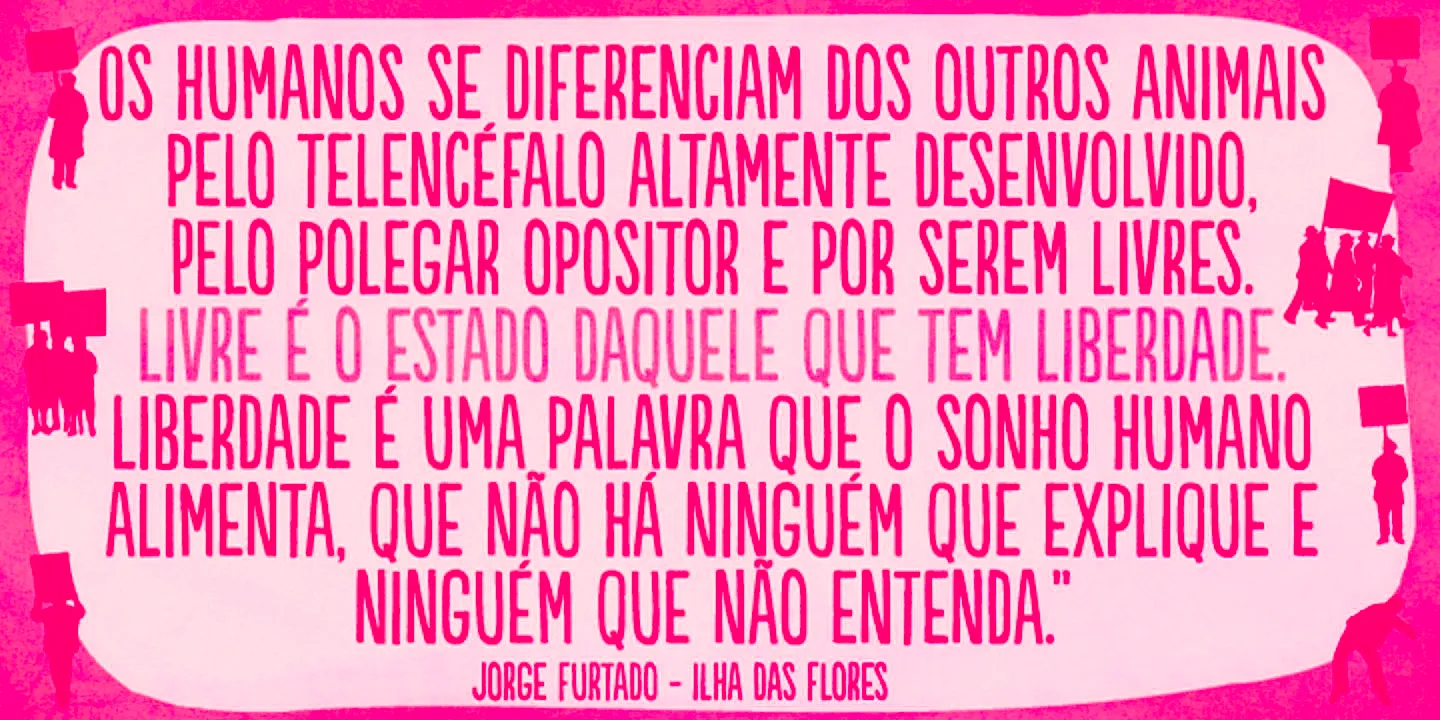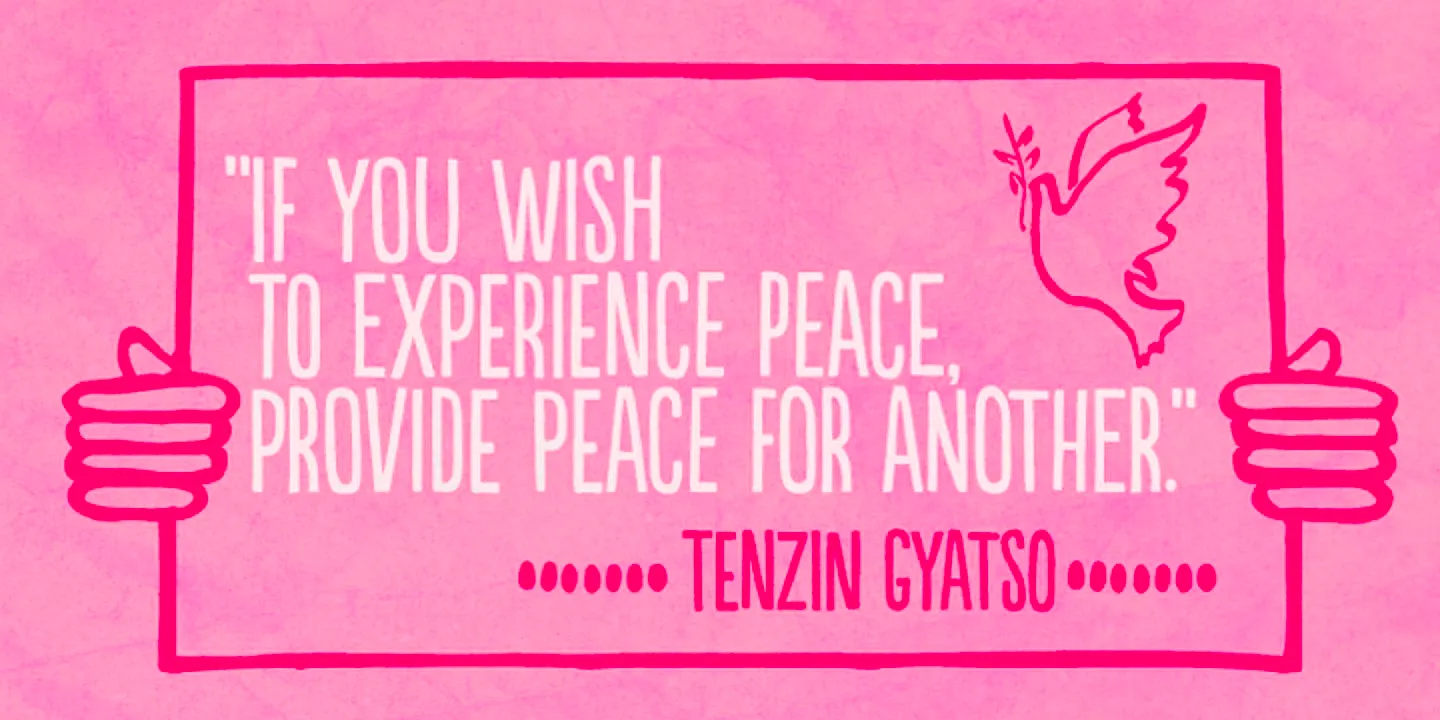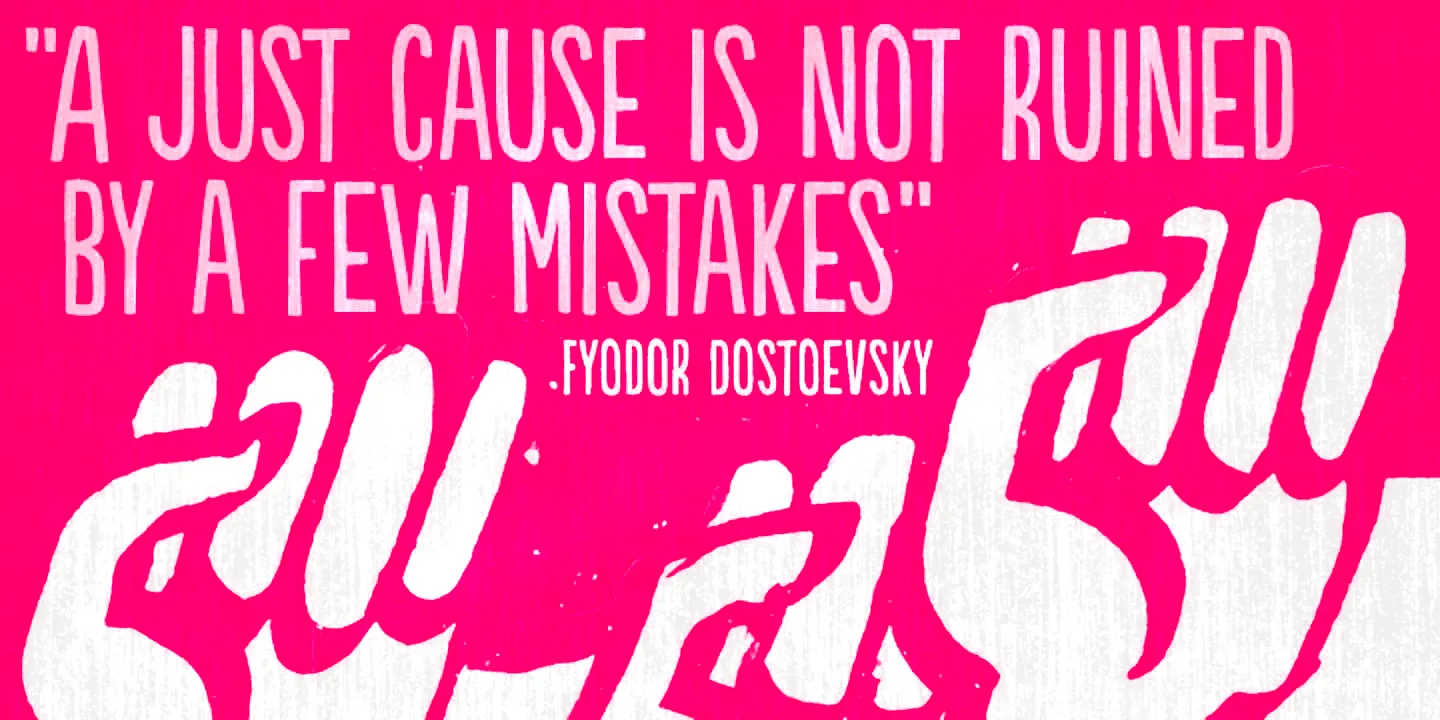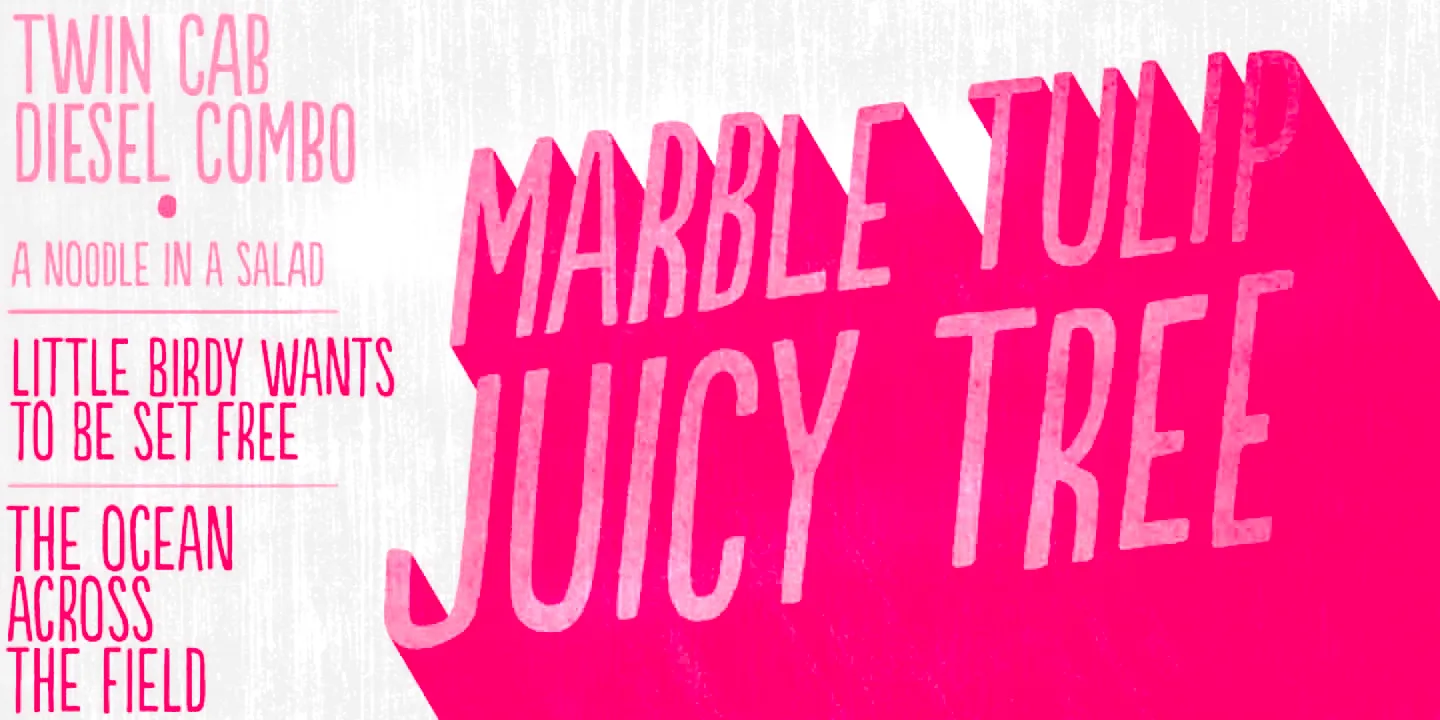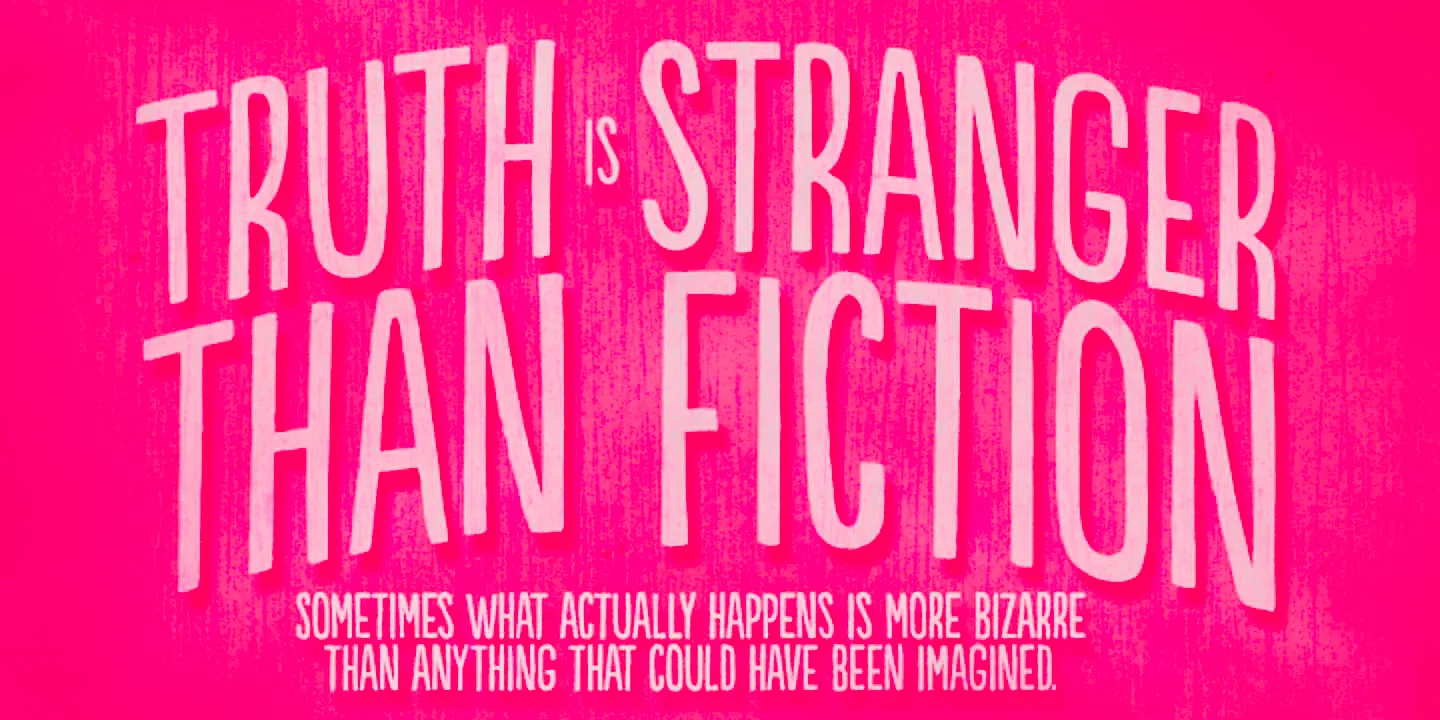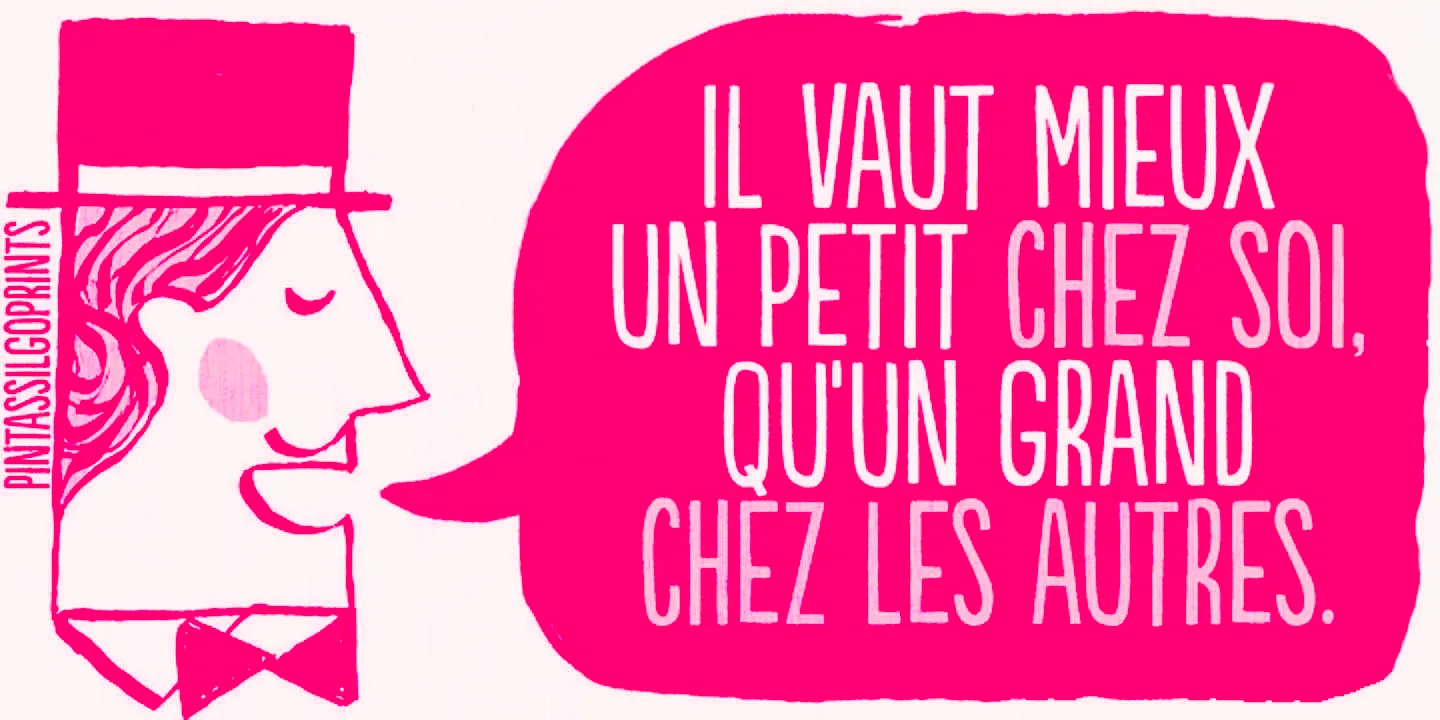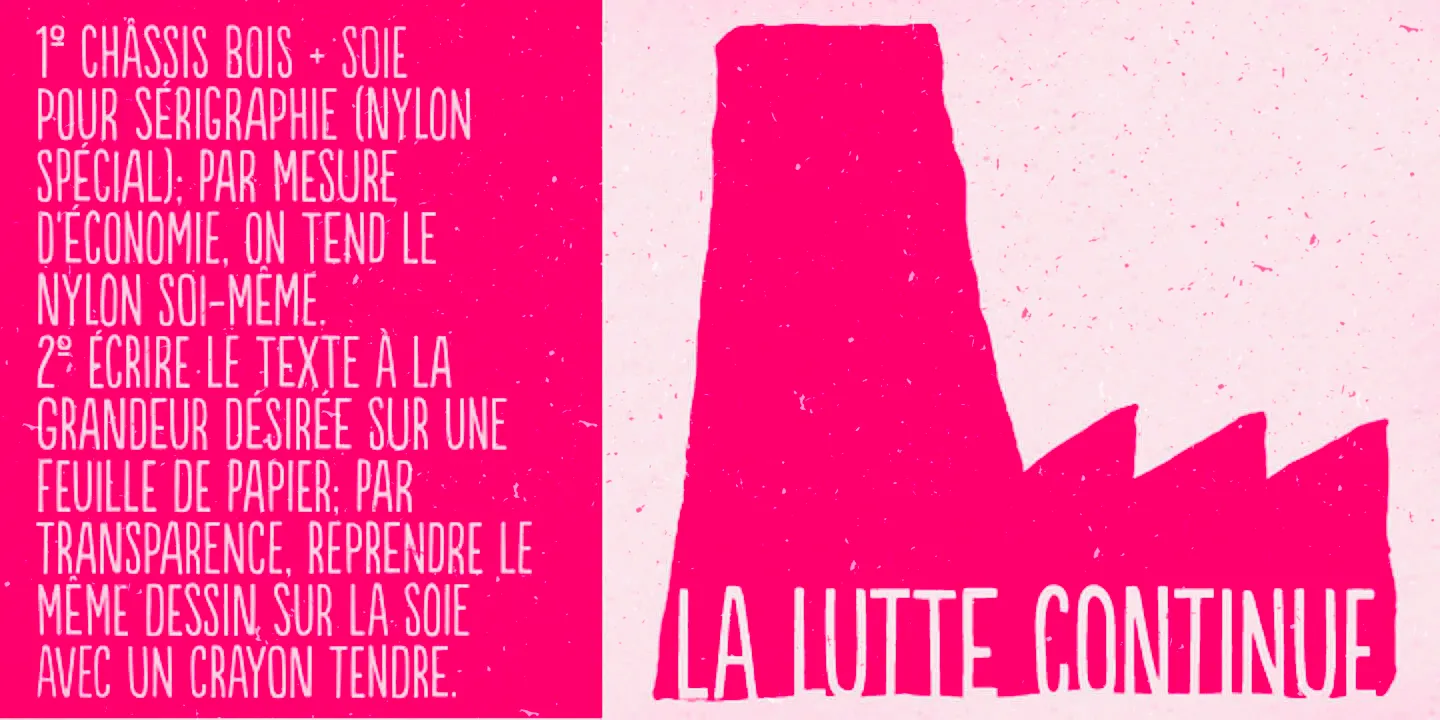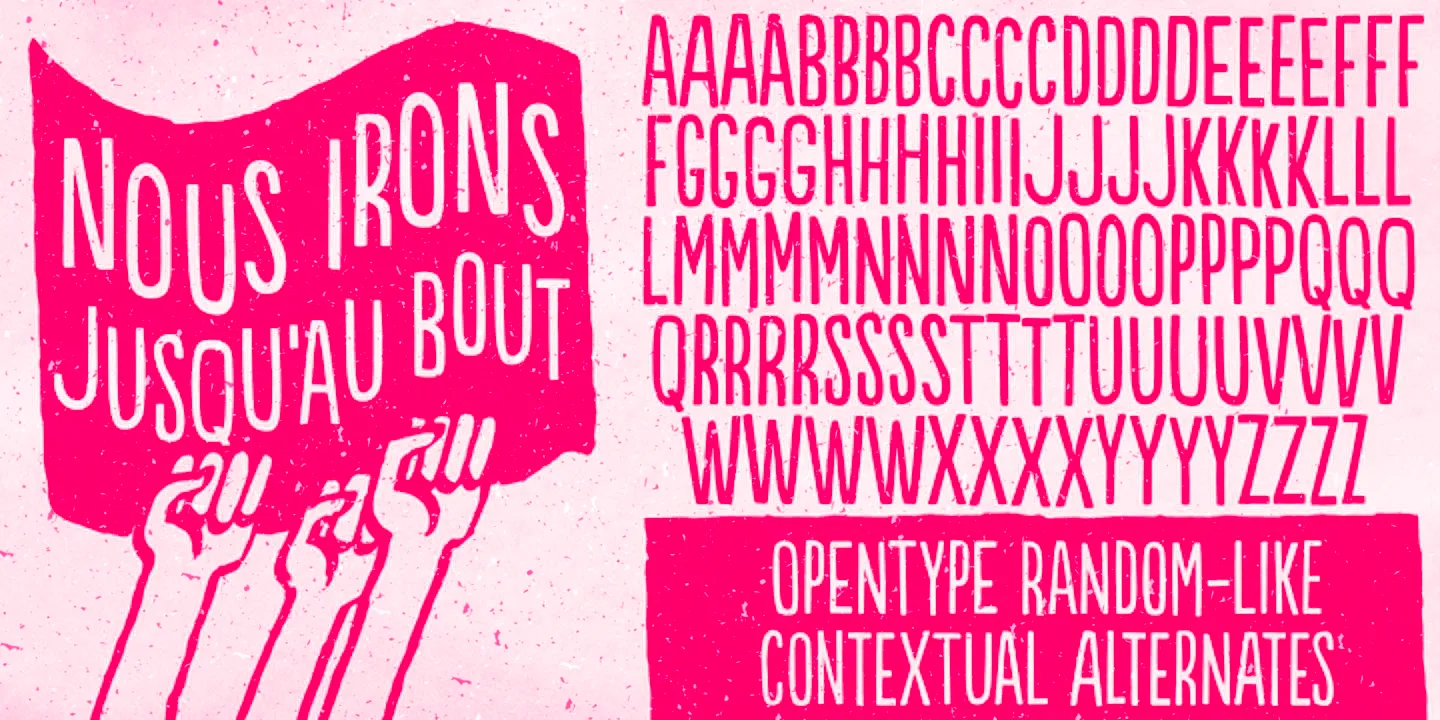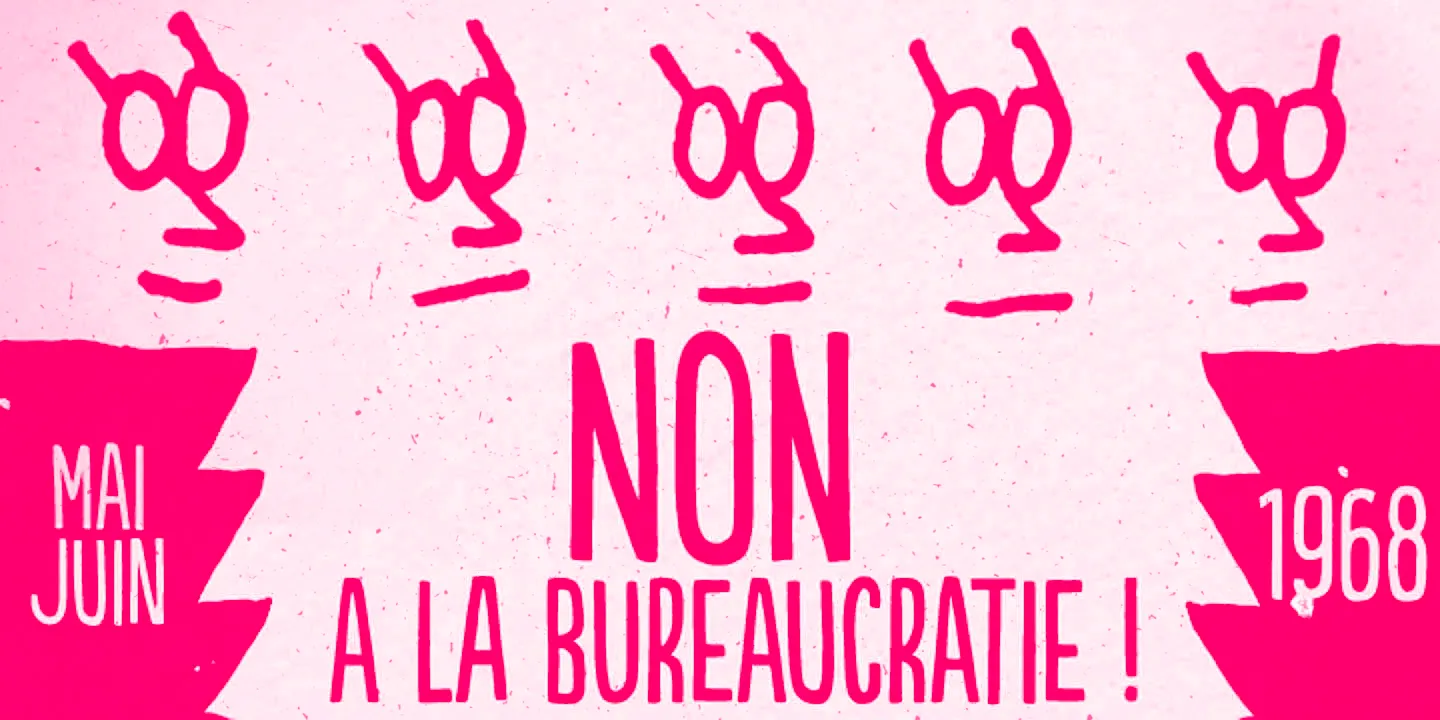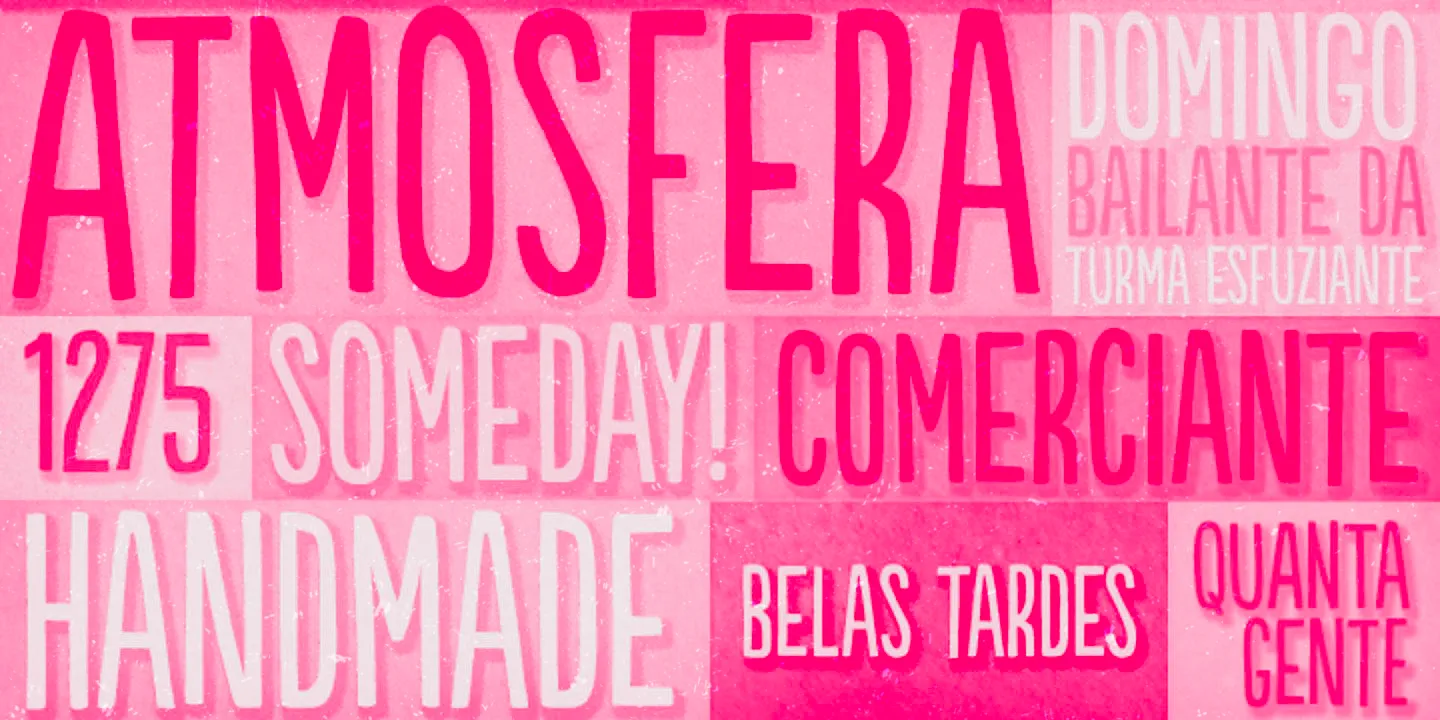
Populaire
Populaire is a hand-drawn condensed sans that mimics authentic hand-lettering. Inspired by the electrifying posters from May 1968 produced by Atelier Populaire, this dynamic font is flexible enough to bring freshness and energy to a wide range of design projects. With 4 glyphs for each letter you can achieve a striking randomness making your packaging, social media, branding, advertising, and magazines come alive even more.
- Ornaments
- Stylistic Alternates
- Stylistic Sets